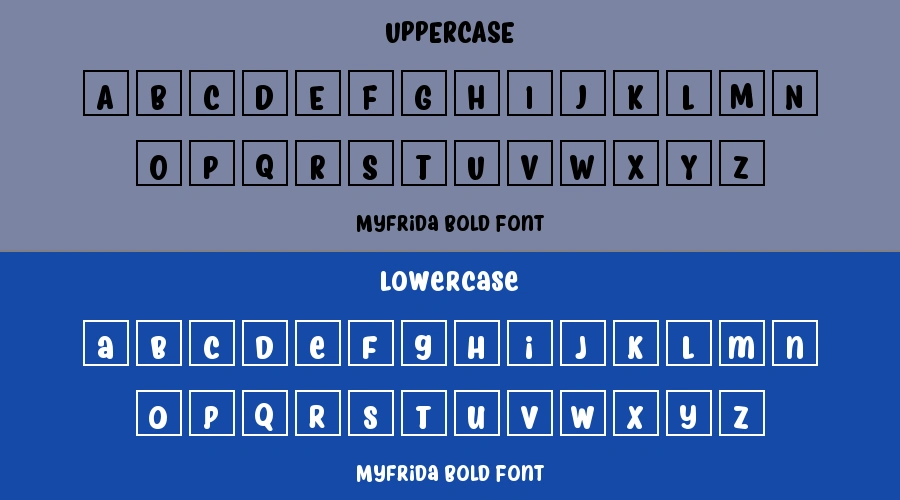
About Myfrida Bold Font
Myfrida Bold Font stands out for its distinctive combination of balanced proportions and clarity. Ideal for brand guidelines, it provides the value and creative potential that professional projects demand. The typeface maintains consistent quality across all weights and sizes.
Key features include refined width contrast and practical tabular figures, enhancing typographic expression. In advertisements applications, Myfrida Bold Font demonstrates exceptional small cap rendering. The counter shape and personality contribute to its distinctive character and professional appeal.